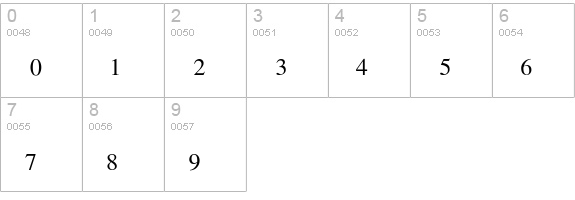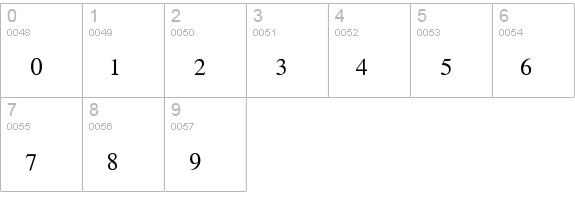
TimeFraction-B Font Details
Introducing TimeFraction-B, a captivating and versatile font that effortlessly blends elegance with modernity. This stunning typeface is perfect for adding a touch of sophistication to any project, from invitations and logos to branding materials and editorial layouts. With its unique and stylish letterforms, TimeFraction-B is designed to make a statement. Its graceful curves and balanced strokes create a harmonious aesthetic that is both visually appealing and highly legible. Whether used for headlines or body text, this font exudes confidence and professionalism, making it an excellent choice for any design endeavor. One of the most remarkable aspects of TimeFraction-B is that it is freely available to download at FontsMarket.com. This means that you can access this exceptional font without any cost, allowing you to enhance your creative projects without breaking the bank. The convenience of having a high-quality font readily accessible ensures that you can effortlessly bring your visions to life. TimeFraction-B offers a wide range of weights and styles, providing you with the flexibility to experiment and find the perfect look for your design. Whether you prefer a bold and impactful statement or a subtle and refined touch, this font has you covered. Its versatility knows no bounds, allowing you to effortlessly adapt it to different design contexts and create truly captivating visuals. In addition to its stunning appearance, TimeFraction-B also boasts excellent legibility, ensuring that your message is clear and easily digestible. Its meticulous attention to detail and meticulous design make it a reliable choice for conveying information effectively and efficiently. So why wait? Take advantage of this incredible opportunity to download TimeFraction-B for free at FontsMarket.com. Elevate your designs to new heights with this elegant and sophisticated font that effortlessly captures attention and communicates your message with style. With TimeFraction-B, the possibilities are endless, and your creativity knows no bounds.